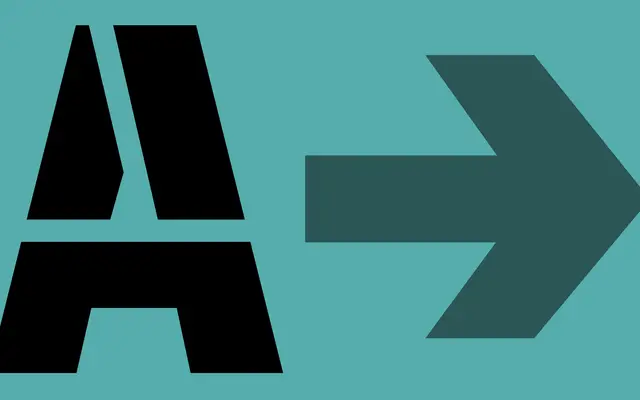
Grand Stencil specimen from A2-Type
A single-style stencil sans with an extensive character set, fractions, icons and ornaments.
An elegant stencil sans serif offered in one style, with a character set that extends beyond the standard to include a bespoke range of fractions, icons and ornaments. The stencil treatment gives it a graphic, almost utilitarian quality while the letterforms retain refinement. Best suited to headlines, packaging and display work where a restrained stencil aesthetic is needed.
A stencil cut of an elegant sans serif, placing it firmly in the display category; the stencil treatment and characterful letterforms distinguish it from utility grotesques.